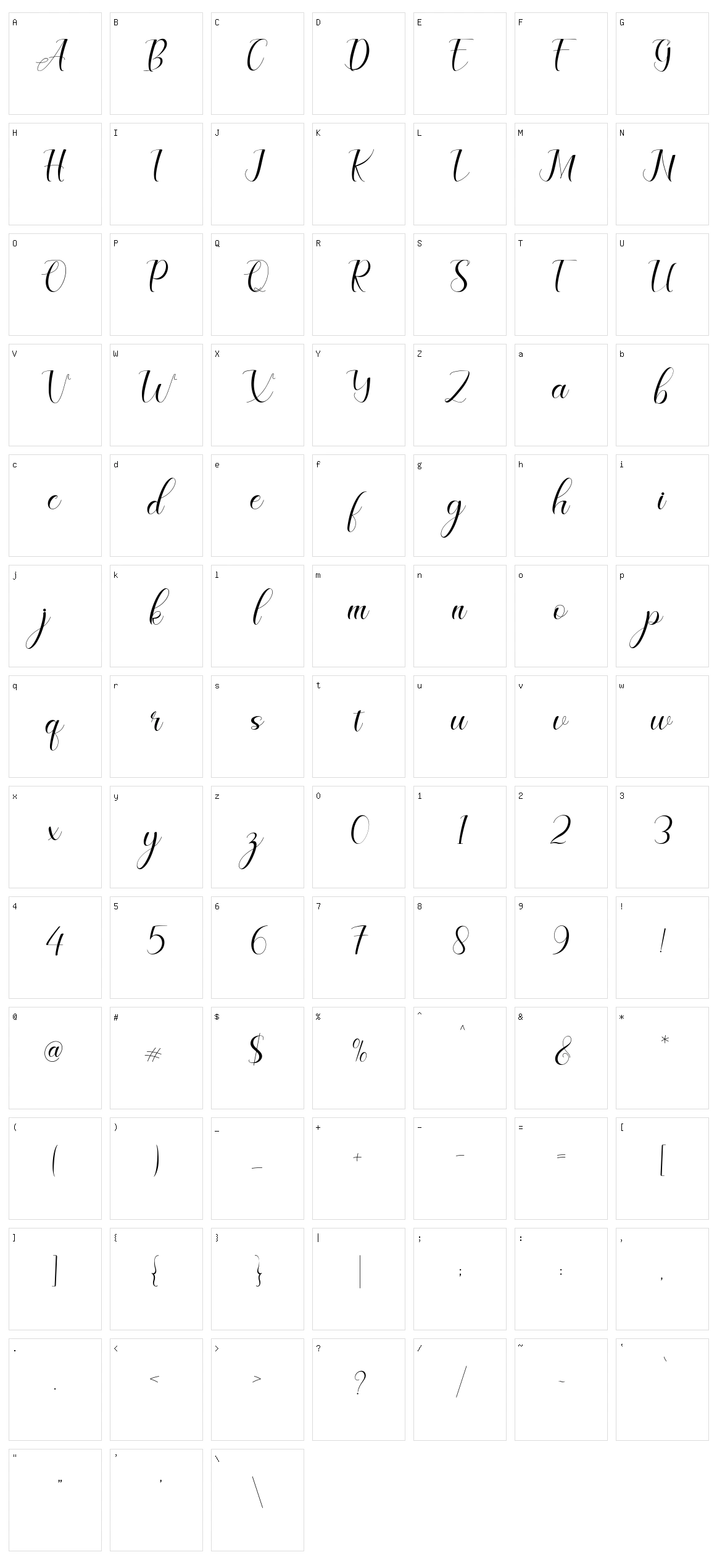
The free font Celinya is carefully designed by Ronin Design, showcasing a thoughtful balance of creativity and usability and falls under the Script font style. When you download the ZIP file, it contains only 113.5 KB of font files, making it lightweight and quick to download. Please review the license details below to understand permitted usage and distribution rights. If license information is not available, we recommend using this font for personal projects only or contacting the author directly for commercial usage permissions.